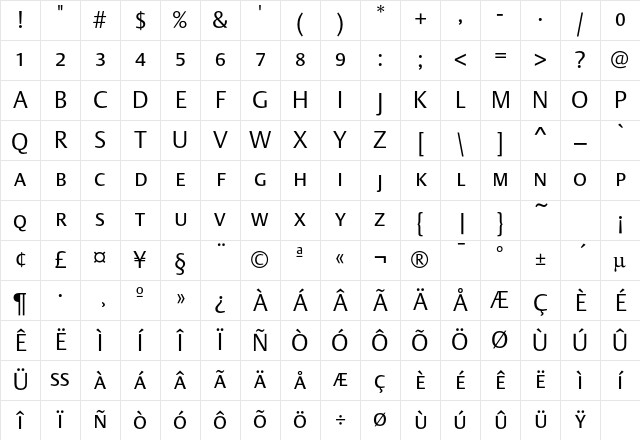
DTLArgoTCaps Light Free Font
DTLArgoTCaps Light
DTLArgoTCaps Family
DTLArgoTCaps Light
Design Context for DTLArgoTCaps
DTLArgoTCaps is a composed and adaptable typeface that performs quietly and consistently across a wide range of design contexts. Its slender proportions lend an understated elegance to any composition.